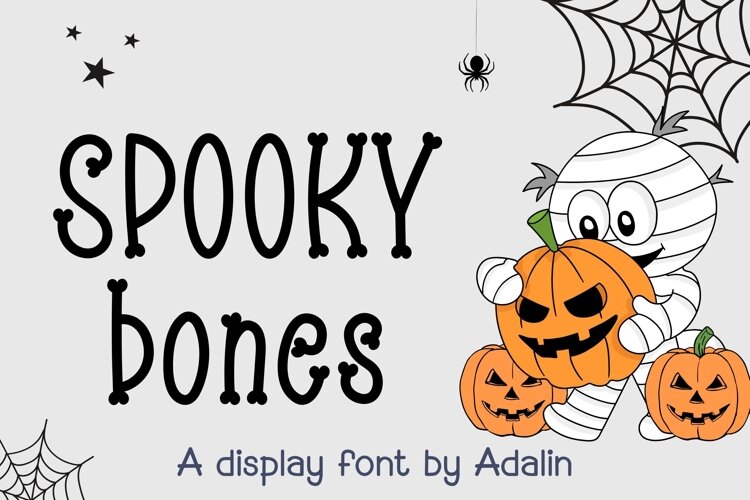
Spooky Bones - Display Font
Spooky Bone is a playful Halloween display font inspired by skeleton bones, spooky decorations, and cute creepy characters. Each letter features whimsical bone-like terminals that give the typeface a fun, hand-drawn personality while keeping it easy to read.
Featuring uppercase and lowercase letters, numerals, and punctuation, Spooky Bone is perfect for Halloween-themed designs, kids’ projects, party invitations, T-shirts, stickers, posters, greeting cards, sublimation designs, spooky quotes, social media graphics, and seasonal crafts.
Its cute-but-spooky style works especially well for Halloween, skeleton, mummy, pumpkin, ghost, witch, and trick-or-treat designs.